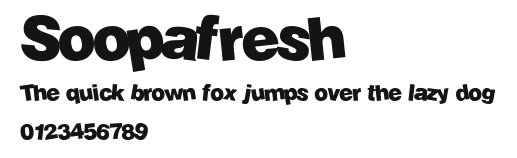
Soopafresh Preview
• Font Name: Soopafresh
• Full Font Name: Soopafresh
About Soopafresh.ttf
Soopafresh.ttf is a modern, elegant sans-serif font designed for ultimate readability and visual harmony. Perfect for branding, headlines, web design, and print materials.